Parachute Type Foundry
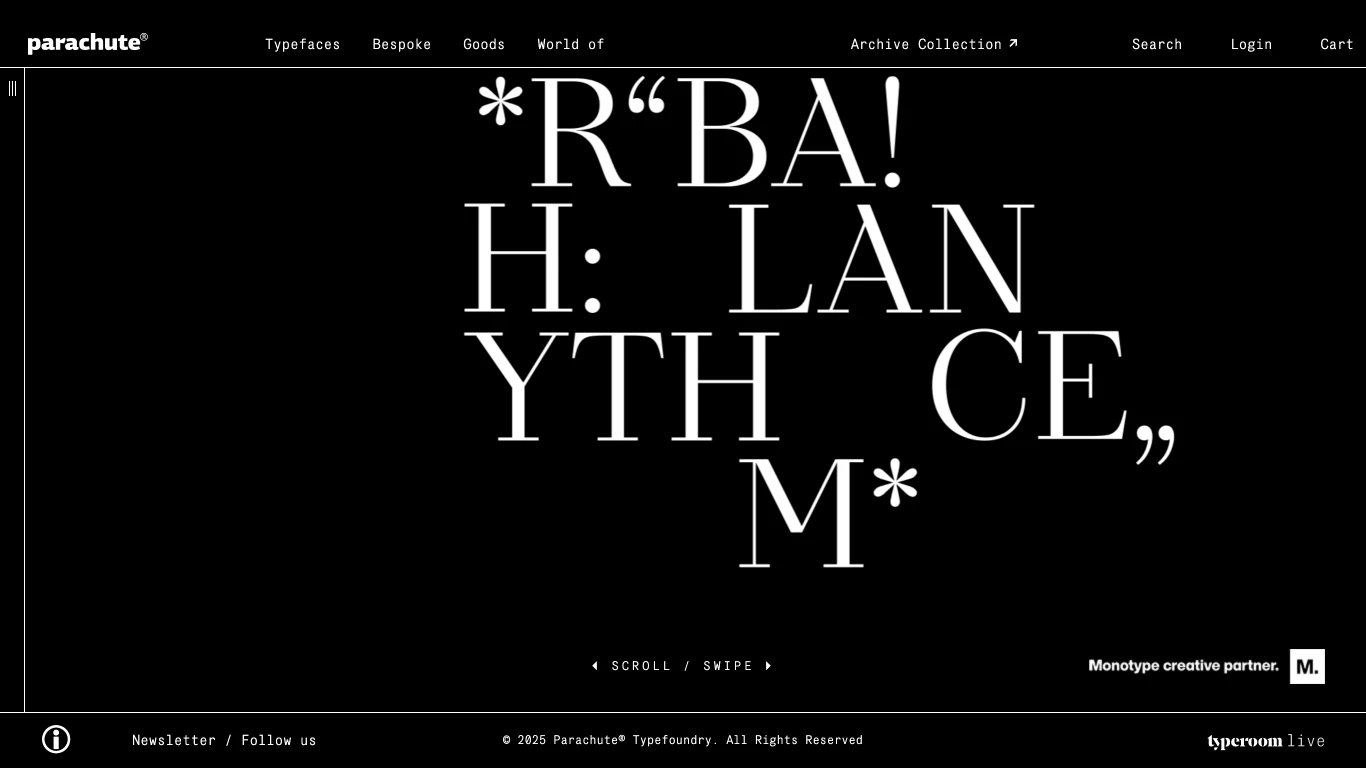
Greece
2001
Parachute Typefoundry is an independent type foundry and design agency based in Athens, Greece, founded in 2001 by Panos Vassiliou. Specializing in bespoke multiscript type design, corporate typefaces, and lettering, Parachute has developed custom typefaces for iconic brands such as Apple, IKEA, Samsung, UEFA, National Geographic, and the Financial Times. Notable typefaces include PF Regal, PF Centro, and PF DIN Text Arabic—the first Arabic adaptation of the DIN typeface. The foundry has earned over 40 international awards, including the Red Dot Grand Prix and TDC Certificate of Typographic Excellence. A unique aspect of Parachute is its commitment to bridging cultural and linguistic gaps through typography, offering comprehensive language support across Latin, Greek, Cyrillic, Arabic, and other scripts.